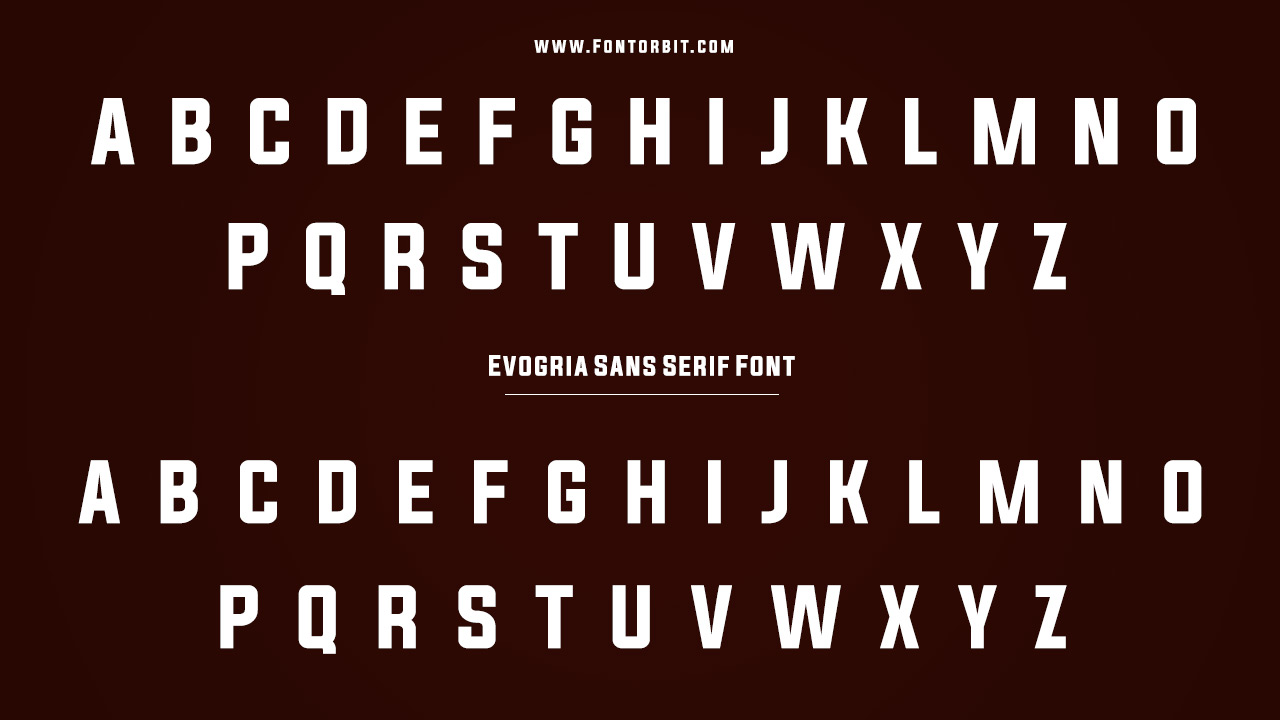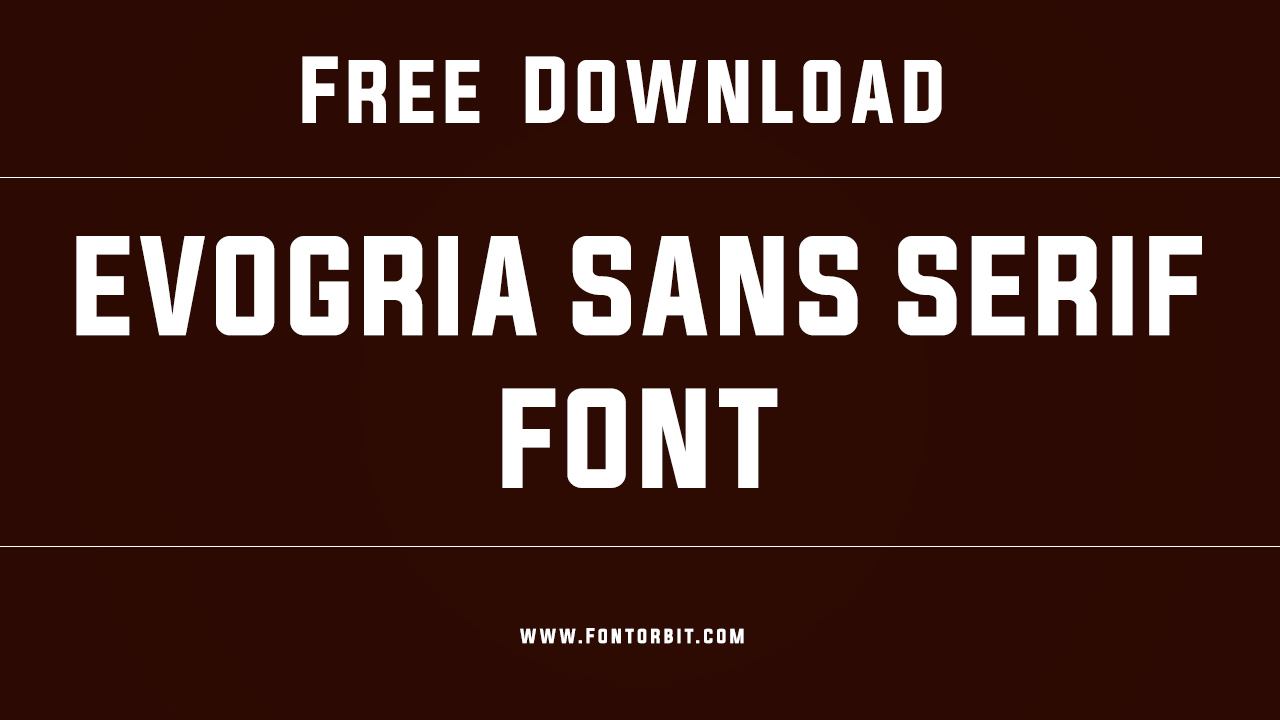
Evogria is a modern sans-serif font designed by 7NTypes and released in 2021. This typeface combines geometric shapes with a clean and contemporary aesthetic.
The Evogria font family is known for its clarity and readability. It is suitable for both print and digital applications and provides a polished look that enhances visual communication.
Evogria Family Includes
Evogria’s various styles cater to different design needs, allowing for flexibility in usage. The font family includes:
- Evogria Regular
- Evogria Italic
Evogria’s versatility allows it to shine in various contexts. Its modern aesthetic makes it ideal for occasions such as:
- Corporate Branding
- Marketing Materials
- Editorial Design
- Social media posts
Evogria is an excellent choice for designers seeking a modern, clean font that is both stylish and functional. Its diverse family options allow for a cohesive design approach, whether in print or digital formats. With its increasing popularity, Evogria is a valuable addition to any font library, enhancing the visual impact of your projects.
1. Is Evogria Suitable For Print?
Absolutely! Its high legibility makes it perfect for various print materials, including brochures and flyers.
2. How Many Styles Does Evogria Include?
The Evogria family includes four distinct styles: Regular, Bold, Italic, and Light, allowing for a range of design options.
5. What Are The Main Characteristics Of Evogria?
Evogria features geometric shapes and clean lines, giving it a modern and sophisticated appearance suitable for various applications.